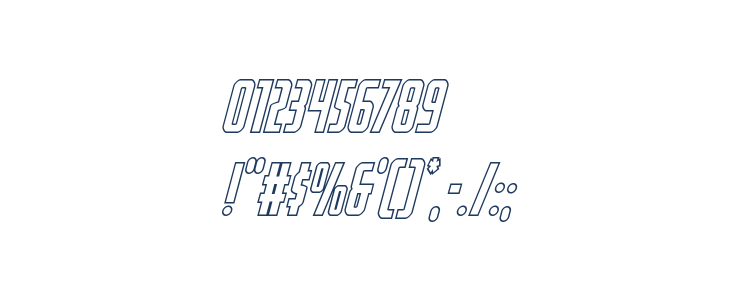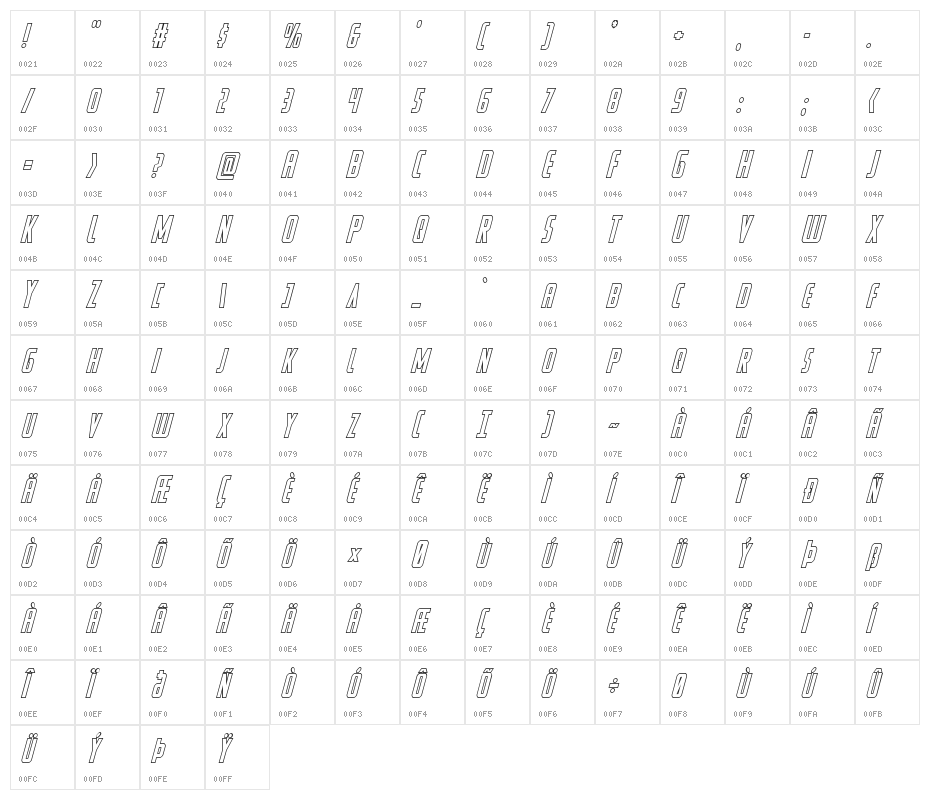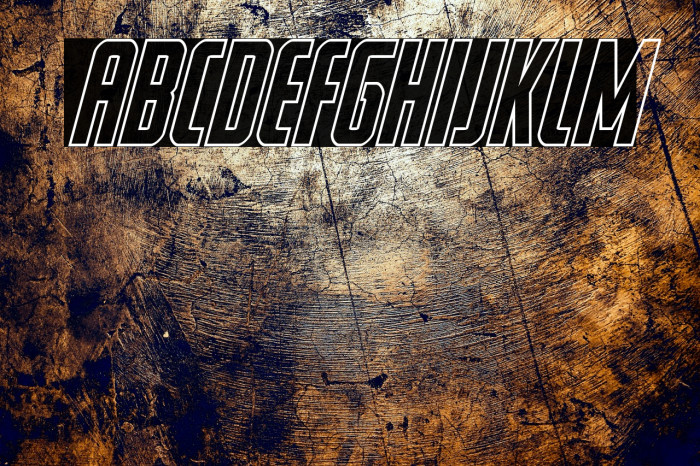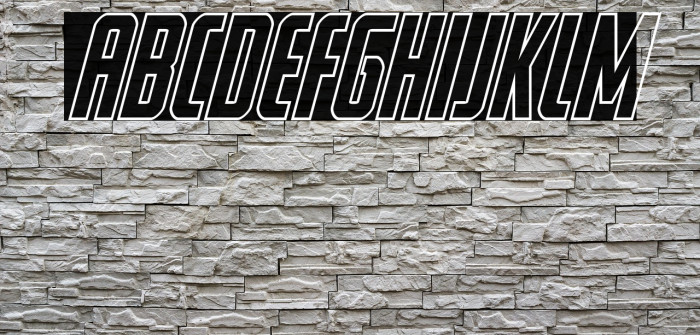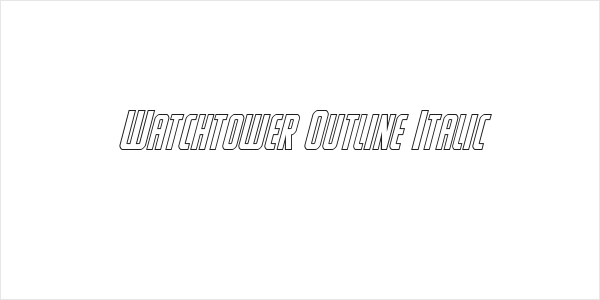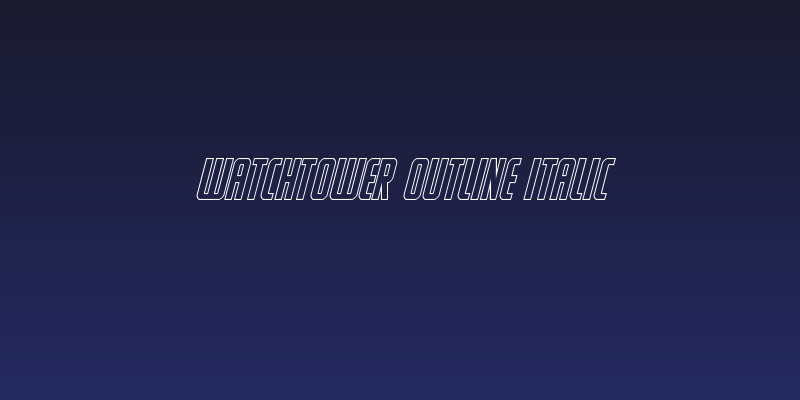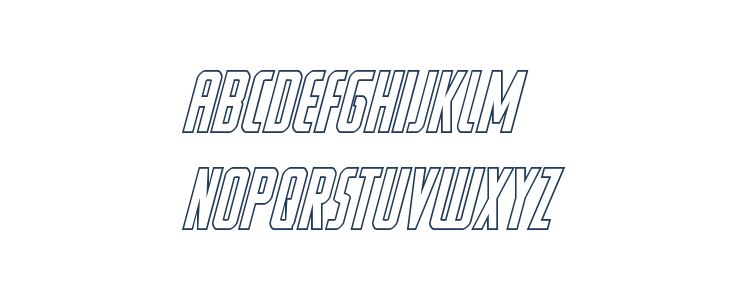
Watchtower Outline Italic Font
Watchtower Outline Italic Description
This font features a bold, outlined style with a distinct italic slant, creating a dynamic and modern appearance. The characters are uniformly designed with sharp angles and clean lines, giving them a futuristic and technical feel. The uppercase and lowercase letters maintain consistent proportions, while the numbers and special characters are crafted to match the overall aesthetic. The outline effect adds a layer of depth, making the text stand out prominently. This font is ideal for projects that require a strong visual impact and a contemporary look.